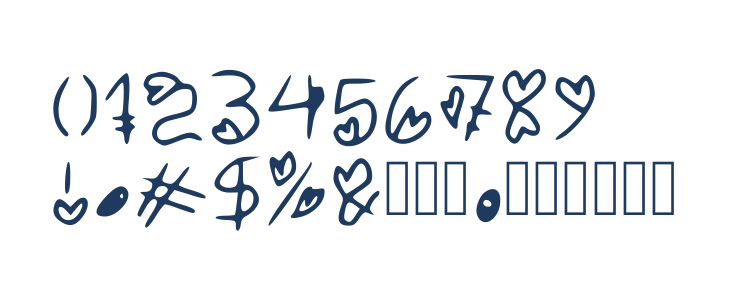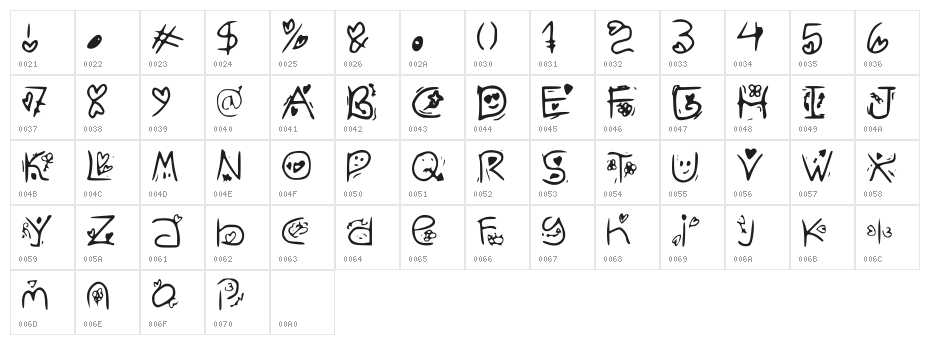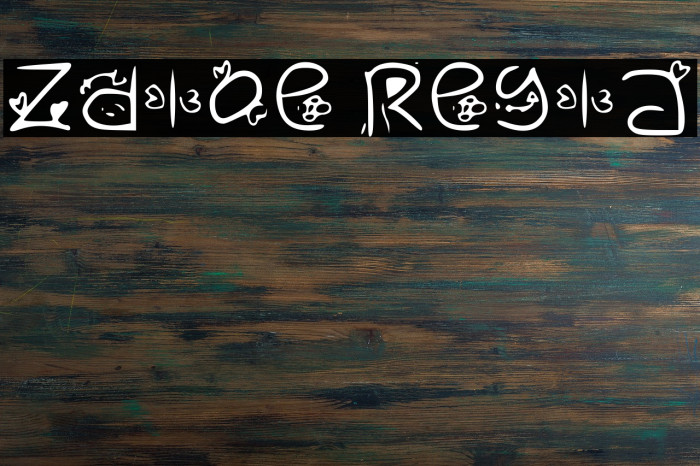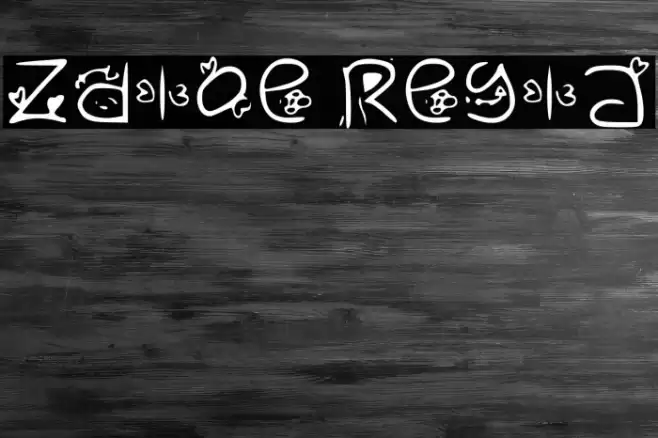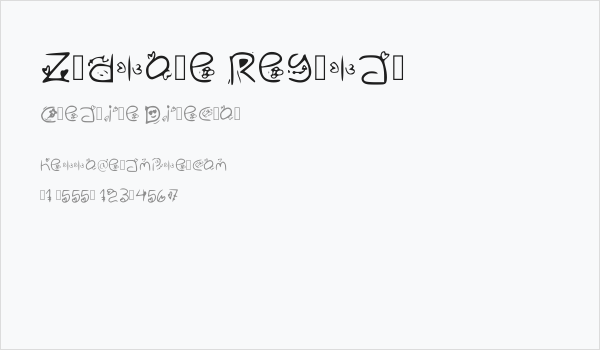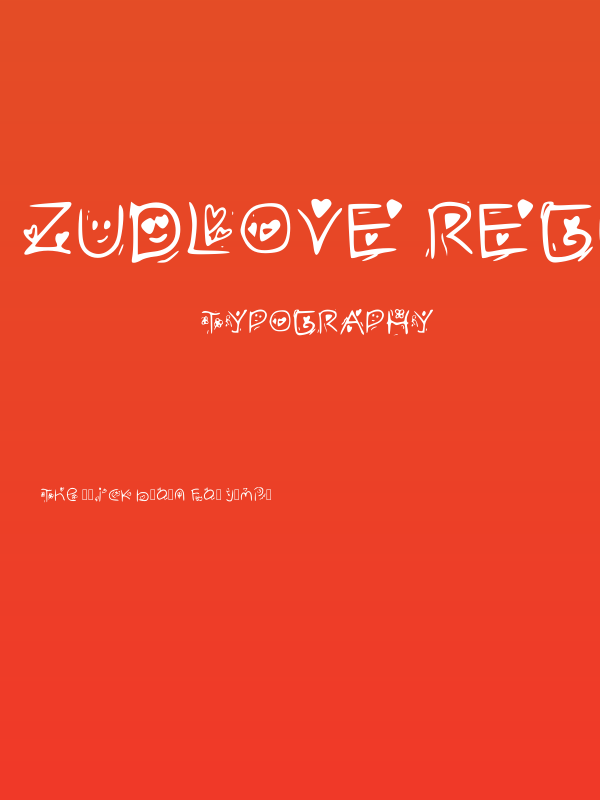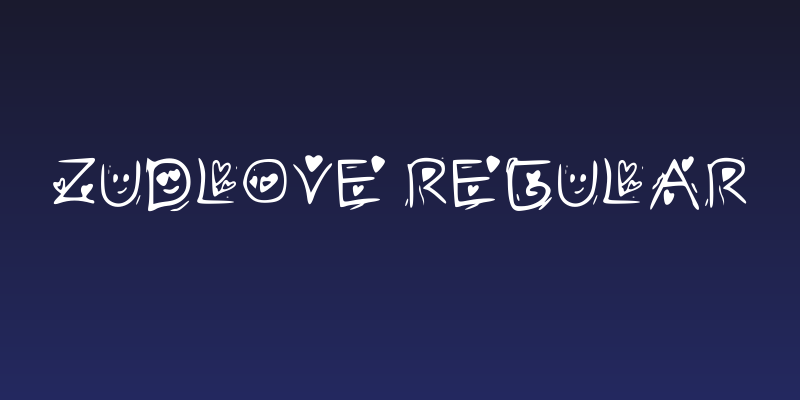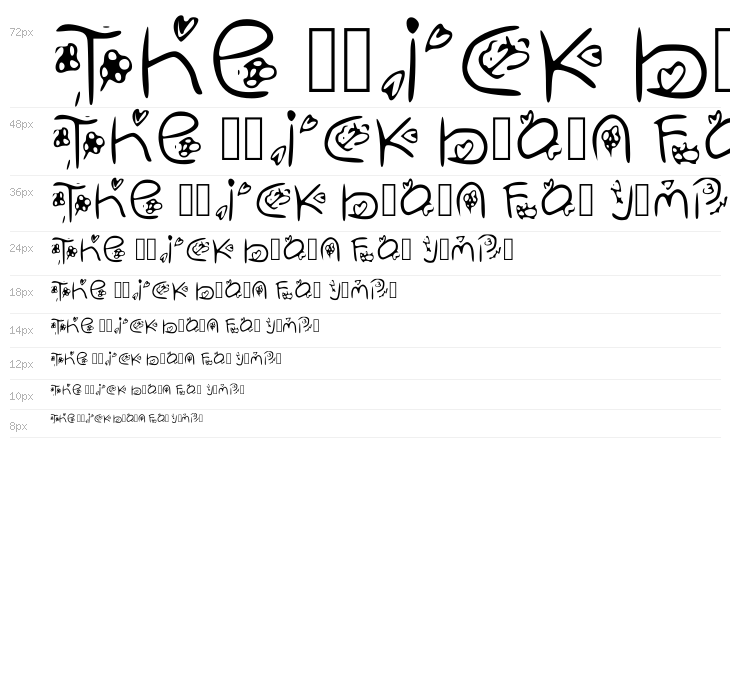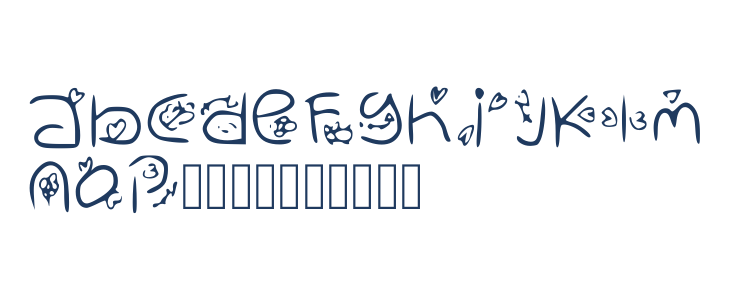
Zudlove Regular Font
Zudlove Regular Description
This font features a playful and whimsical design, incorporating various decorative elements such as hearts, stars, and swirls within the letterforms. Each character is uniquely styled, giving it a hand-drawn and artistic appearance. The uppercase and lowercase letters maintain a consistent theme, with embellishments that add a sense of fun and creativity. The numbers and special characters follow the same decorative style, making the font suitable for projects that require a lively and engaging aesthetic.
Use CaseLogos, Posters, Creative projects
Proposed ProjectsIdeal for children's books, greeting cards, playful branding, and creative posters.